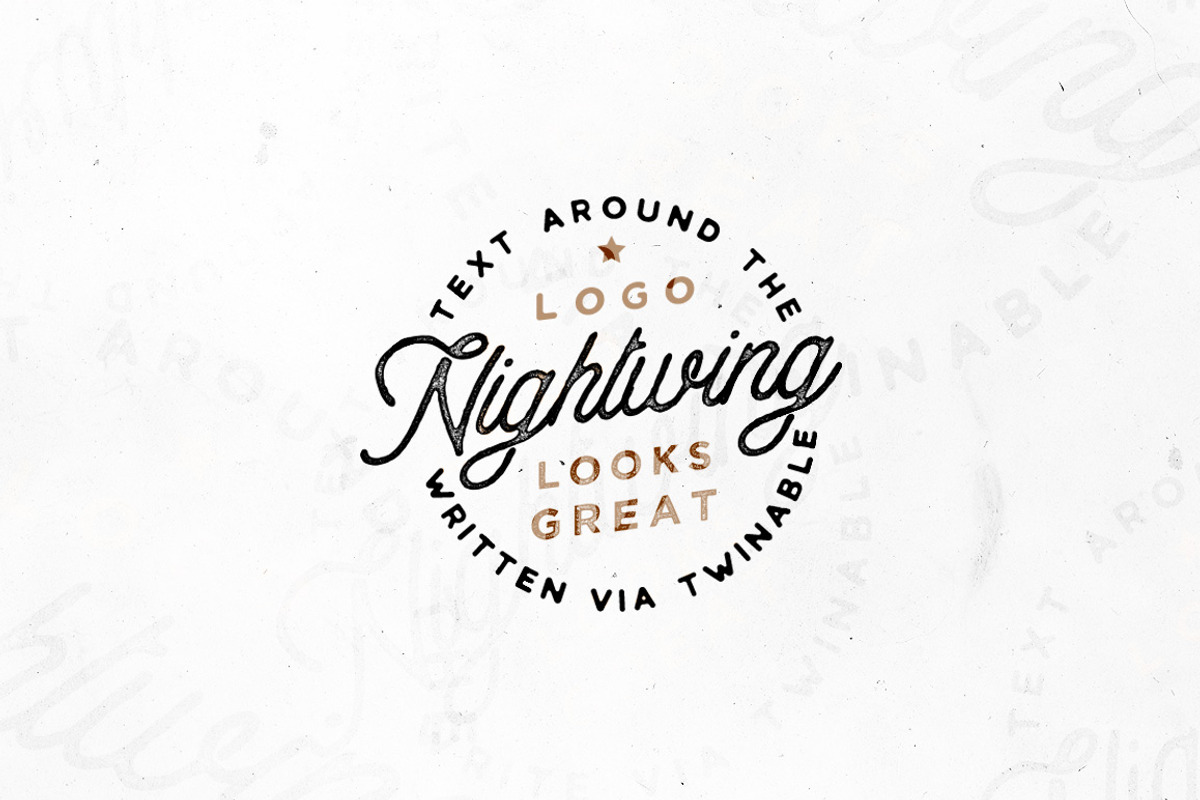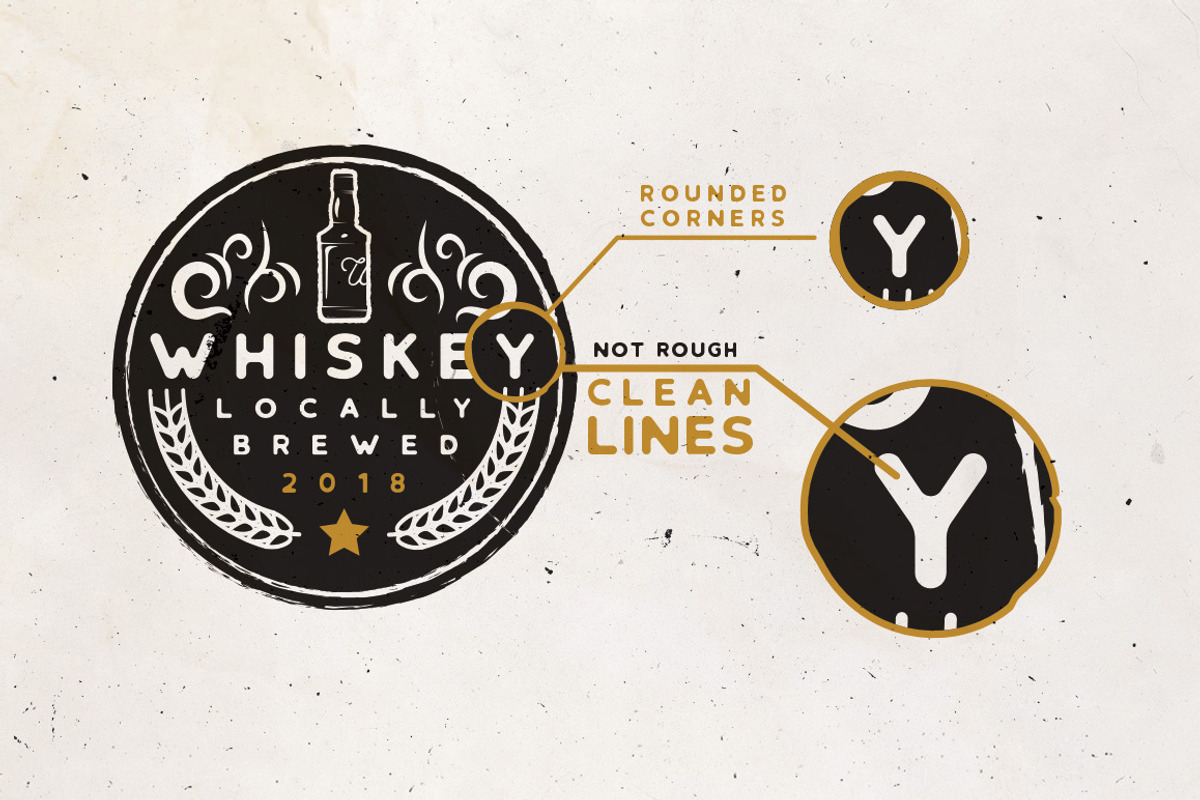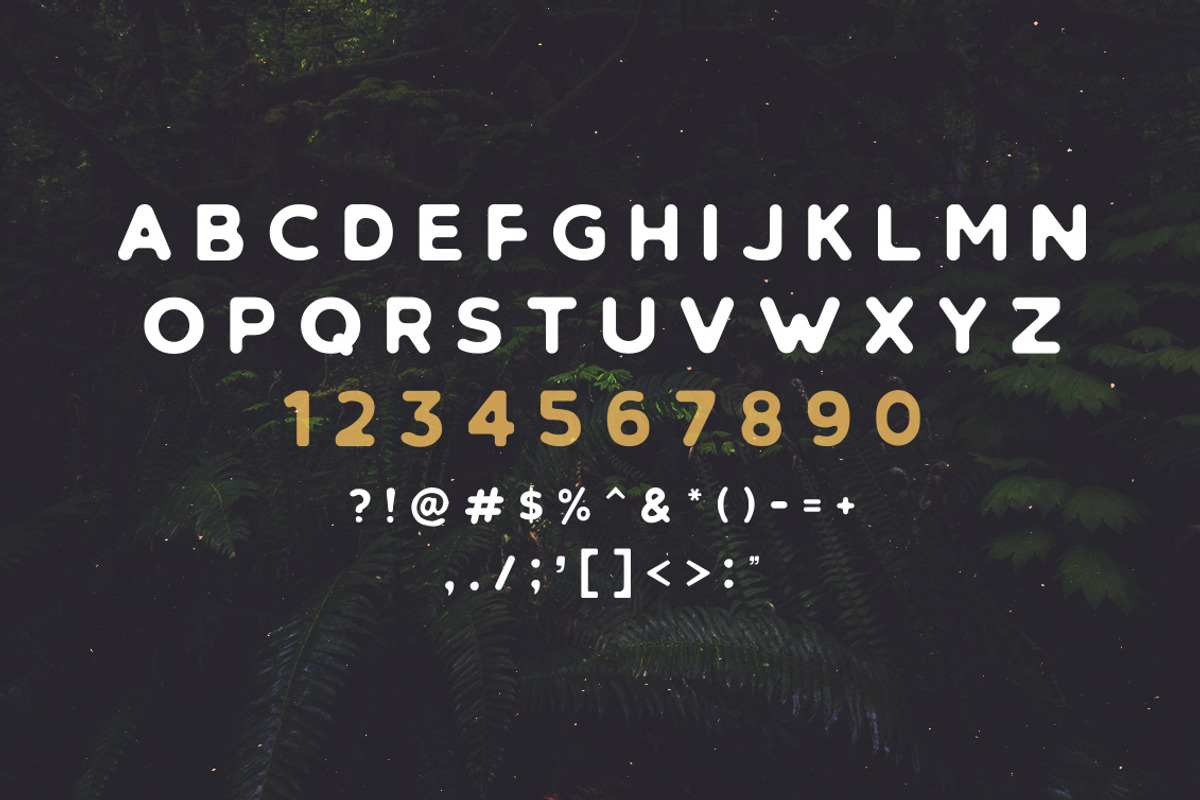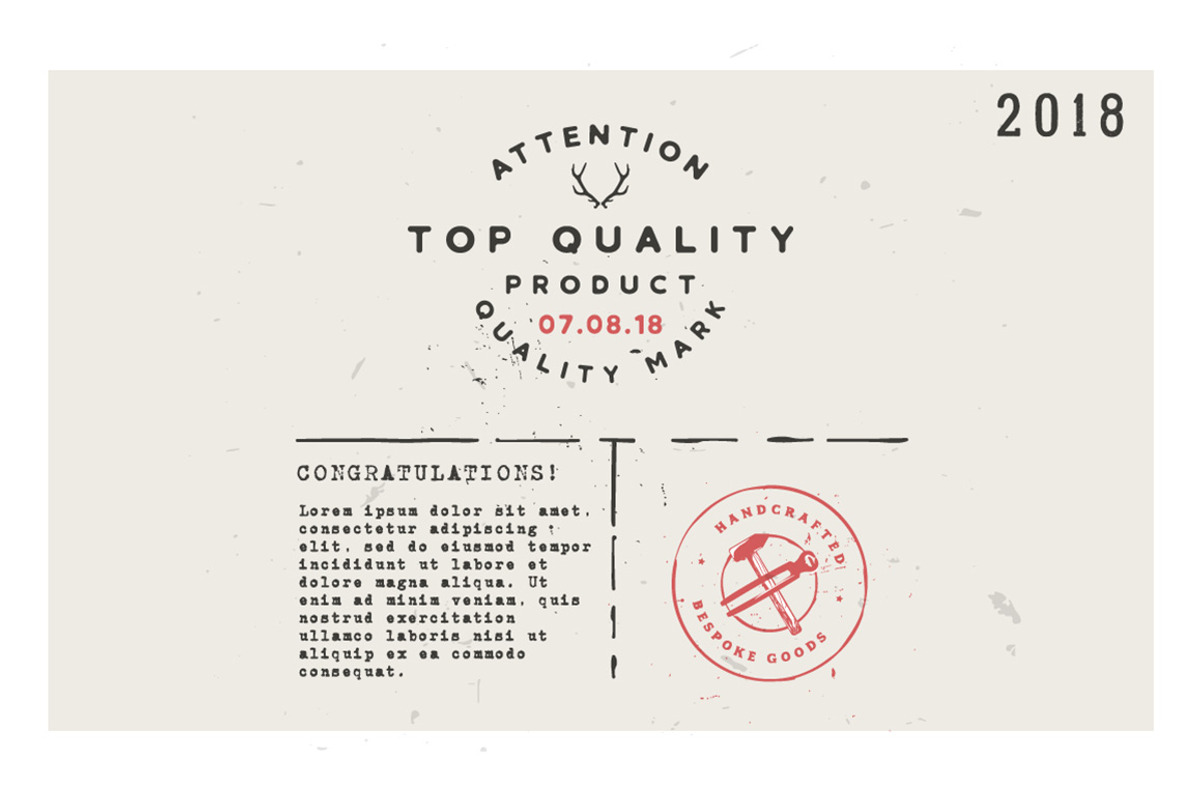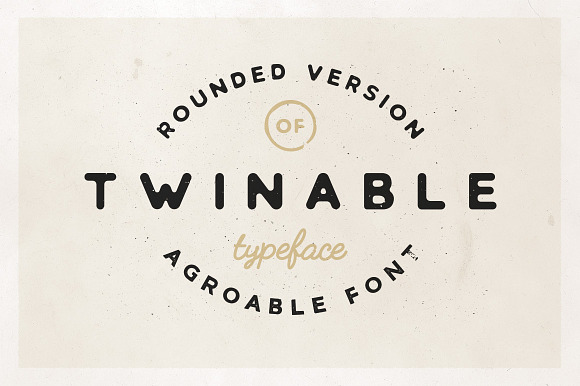
Twinable - Rounded Retro Font
Twinable is rounded brother of Agroable. ( But with complete certainty it can be said that this is an separate font!
Font is perfect for designing vintage logotypes, badges, labels. It may be used as "main" font in logotype (big text in a center of logo), and as a secondary font (for example, the text around the logo with the secondary information). Make your own stylish retro logo with this font and enjoy the result!
But don't stop on logos - use it for creating t-shirt prints, business cards, flyers, posters, ads, restaurant menus, signs, typography design, quotes and any graphic design.